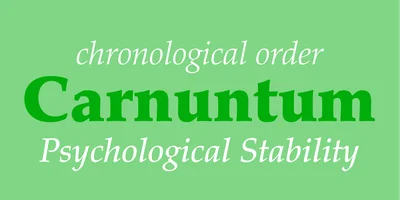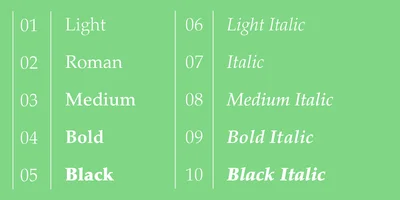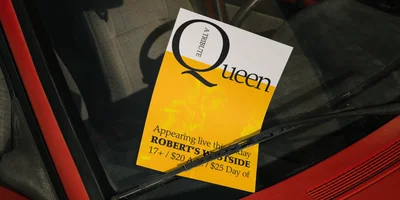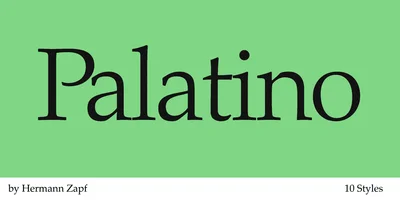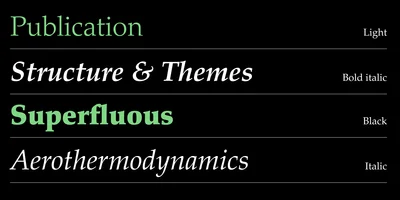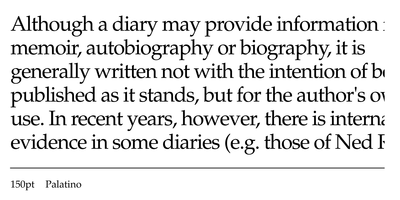
Palatino vs Warnock Pro
Palatino and Warnock Pro are both serif typefaces sharing a old style foundation. Where Palatino leans script, Warnock Pro brings modern. Compare which suits your Editorial project.
Recommended: Palatino
• script design character
• Suited for Academic and Documents
• From Linotype
• Broader language support
Consider: Warnock Pro
• modern design character
• Suited for Corporate and Print
• From Adobe